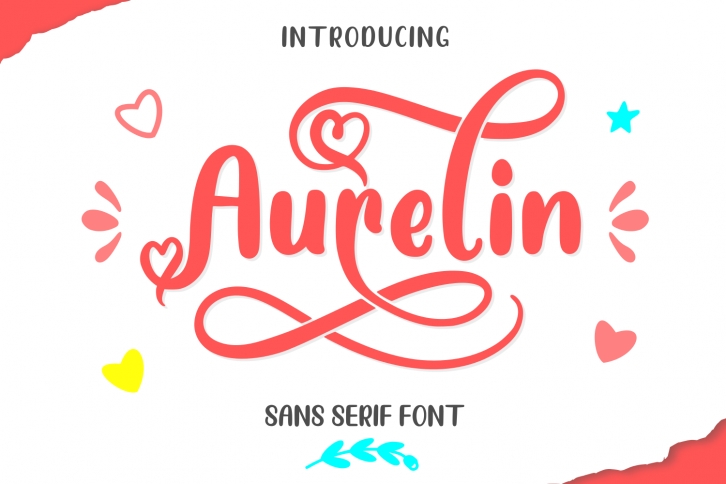
Aurelin is a gorgeous font that was realeased on January 27, 2020. The font can be used in many style contexts and design environments. Perfect for invitations, magazines, websites, logos, and more! It was designed by MakashiCreative and the file size is 16.17 MB. Thanks for checking out this font!